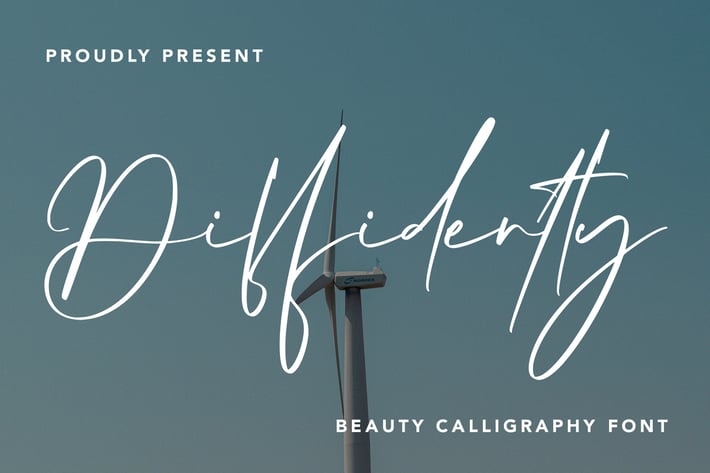
Diffidently - Beauty Calligraphy Font
Diffidently - Beauty Calligraphy Font contains a lowercase, uppercase, symbol, and also supports multi-language. There’s a lot of ligature in this font. Diffidently - Beauty Calligraphy Font also comes with ligatures, stylistic alternates and many more.
this font suitable for fashion, branding, catalog and other design that you want.